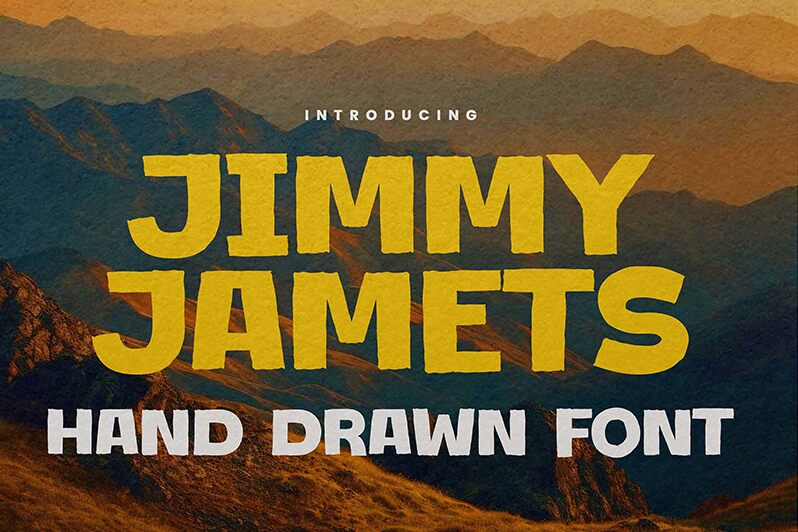
Jimmy Jamets
Jimmy Jamets font by Gassstype is a display font with cartoonic elements and a bold expanded design. Its blocky body and thick, expanded presence give it the ability to break through even the most crowded backgrounds. The retro strokes further contribute to this effect along with an old vibe that brings a certain amusing and charming touch.
Use this free stunning typeface in T-shirt designs, magazine cover titles, websites, greeting cards, video games, stationery decorations or typography posters. Packaging designs like drink cans cannot miss out on this fancy font as well.